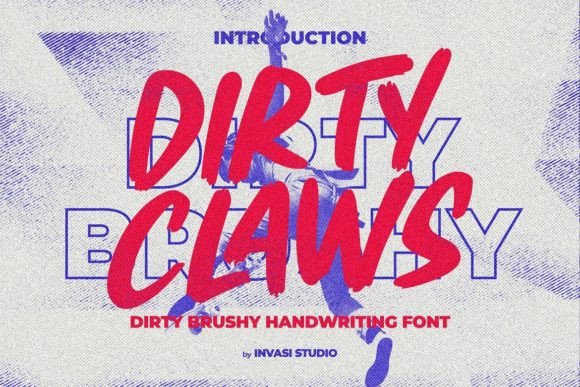
Unleash the raw energy of your designs with Dirty Claws, the ultimate script font that embodies boldness and strength. This all-caps brush font exudes an aggressive charm that commands attention and leaves an unforgettable impact. With its rugged texture and unapologetically bold style, Dirty Claws will transform your projects into masterpieces of audacity.
Immerse yourself in a world of creative possibilities as Dirty Claws empowers you to craft designs that roar with confidence. Whether you're creating eye-catching T-shirt designs, crafting edgy flyers, or designing captivating book covers, Dirty Claws will amplify your message with its inherent power. Unleash your imagination and bask in the glory of bold typography.
Harness the versatility of Dirty Claws and watch as it seamlessly adapts to a myriad of design projects. Its inherent strength shines through in headings, demanding attention and setting the tone for your content. Craft greeting cards that resonate with heartfelt emotions, or create product packaging that exudes an air of exclusivity and quality. Dirty Claws effortlessly elevates your designs, making them stand out from the mundane and leaving a lasting impression.
With Dirty Claws at your disposal, linguistic boundaries dissolve as it effortlessly supports multiple languages. Embrace the global nature of design and communicate your message to a worldwide audience. Dirty Claws transcends cultural and linguistic barriers, ensuring your designs resonate with a diverse audience.
Dive into the depths of Dirty Claws' character set and discover a treasure trove of alternative characters and standard ligatures. These typographic gems add an extra layer of depth and personality to your designs, allowing you to express yourself with precision and flair. Experiment with different combinations and arrangements to create visually stunning text that captivates and enchants.
Dirty Claws is more than just a font; it's an invitation to unleash your creative spirit. Its bold and aggressive style ignites inspiration, challenging you to push boundaries and create designs that resonate with raw power. Embrace the transformative energy of Dirty Claws and witness the birth of bold and unforgettable designs that leave an indelible mark on your audience.